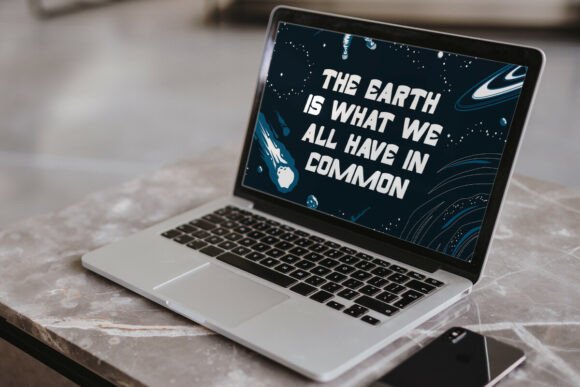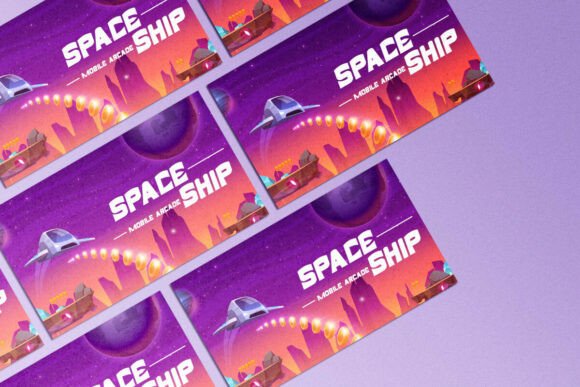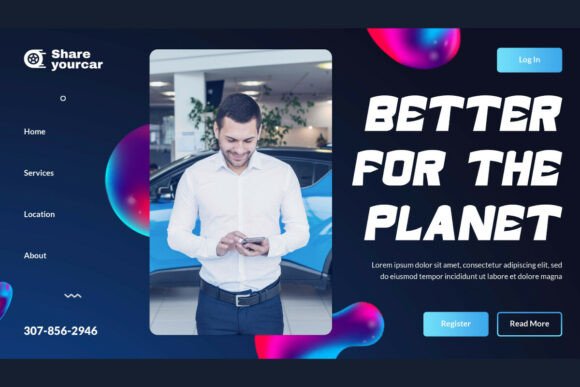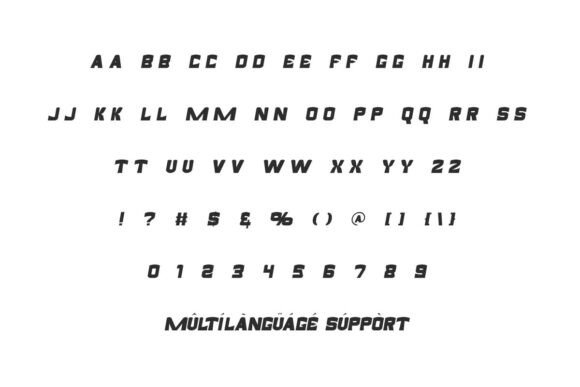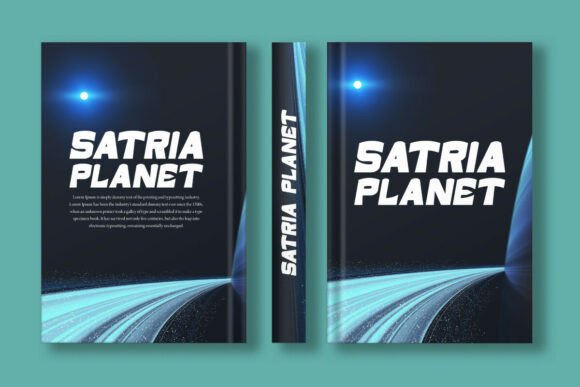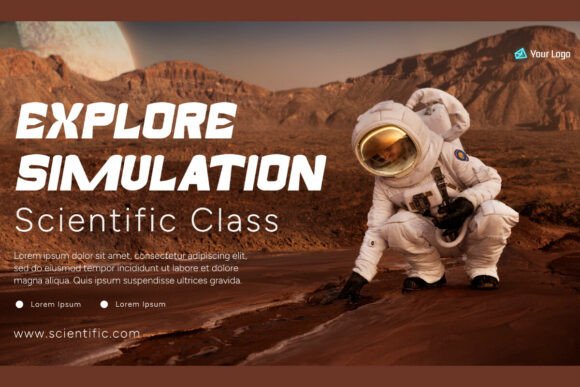
Introduction to Satria Planet Font
Satria Planet is a bold unique gaming display font with an unusual and contemporary style.
Originally inspired by racing sports fonts but leaning more towards a space theme It would be perfect as part of a design project that demands a minimalist yet strong typographic look, such as billboard ads, brochure, cards design, cover, headers, poster, website, etc.